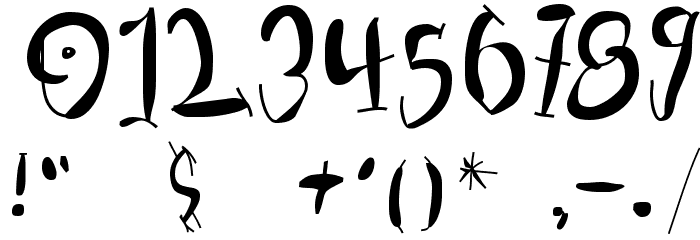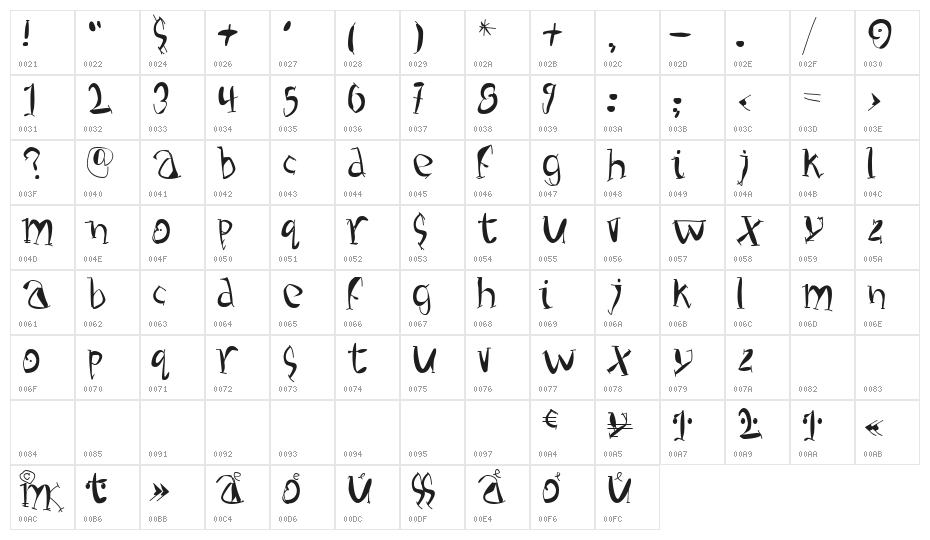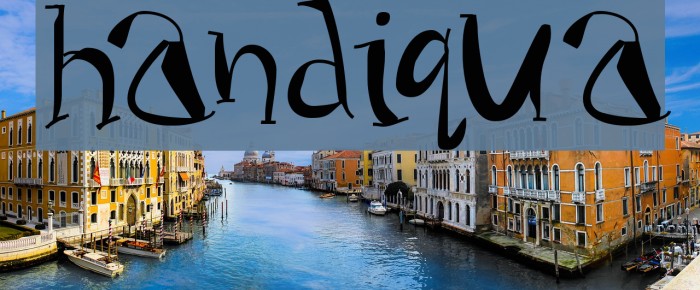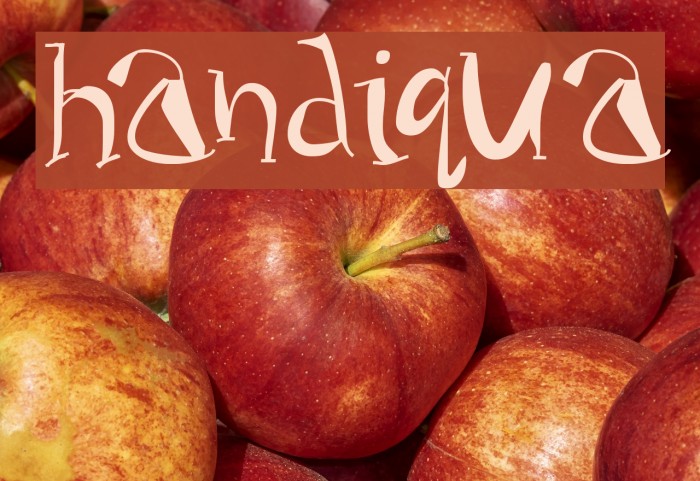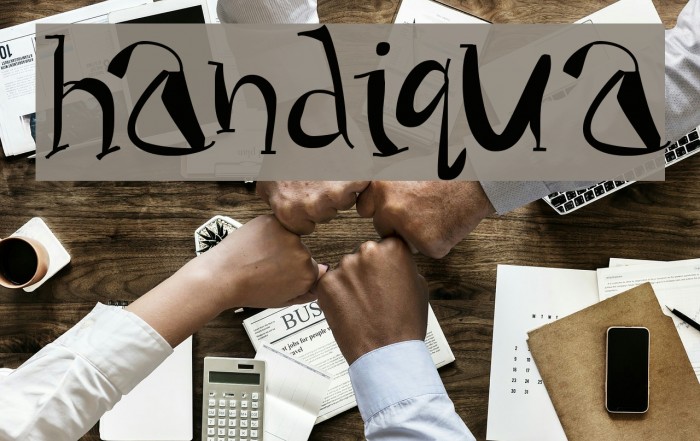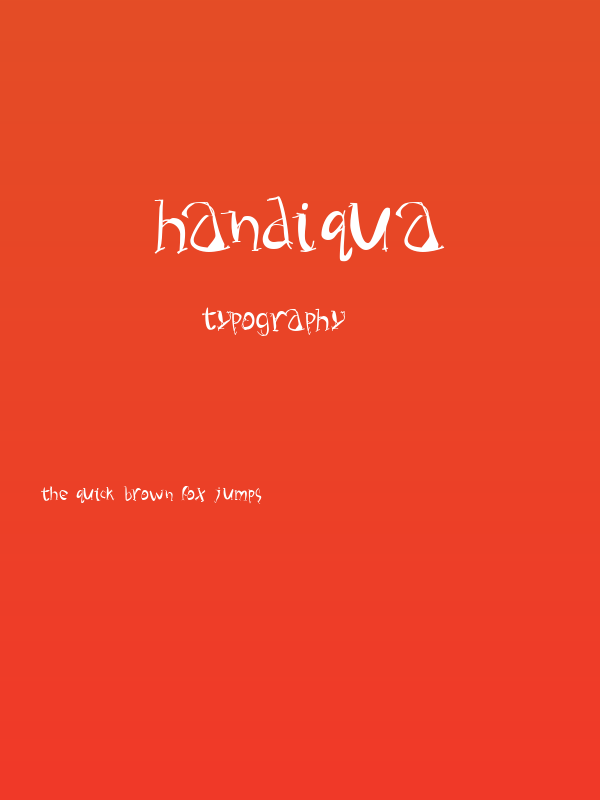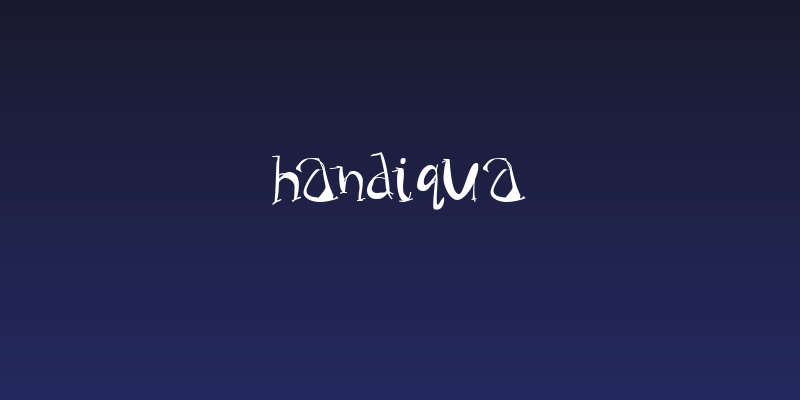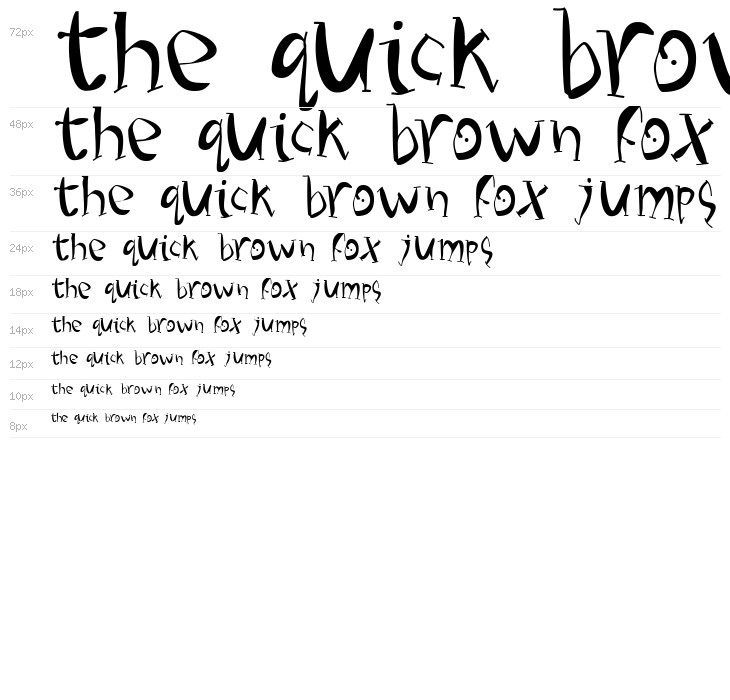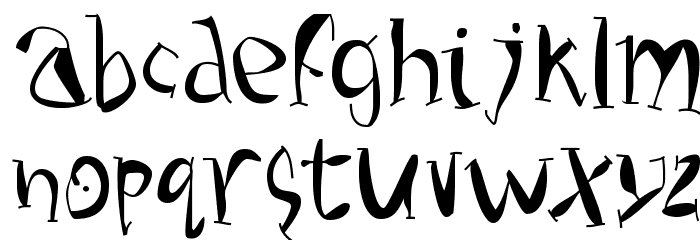
Handiqua Font
Handiqua Description
This font features a whimsical and artistic design, characterized by its irregular and playful strokes. Each letter appears to have been hand-drawn, giving it a unique and organic feel. The uppercase and lowercase letters maintain a consistent style, with exaggerated curves and varying line thickness that add to its charm. The numerals and special characters follow the same artistic approach, ensuring a cohesive look across all glyphs. This font exudes a sense of creativity and spontaneity, making it ideal for projects that require a touch of personality and flair.
| Use Case | Headlines, Artistic projects, Invitations |
| Proposed Projects | Ideal for creative projects such as invitations, greeting cards, children's books, and artistic posters. |